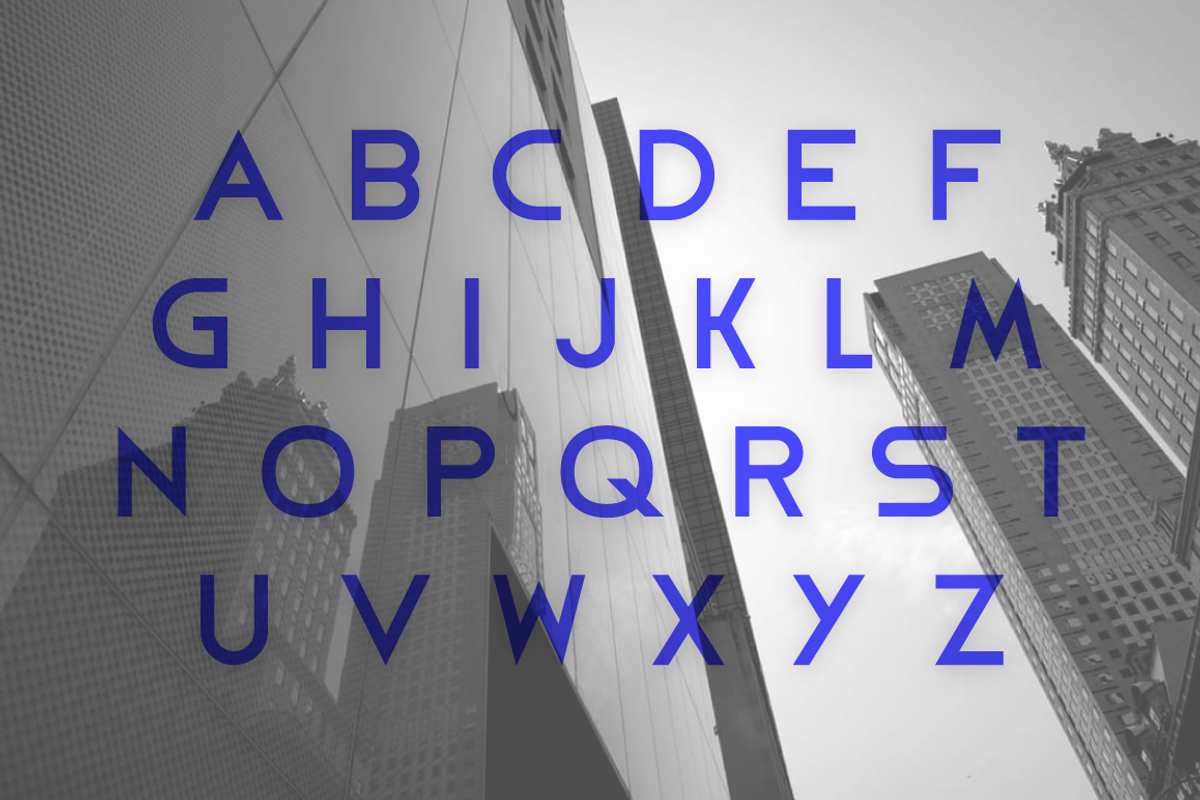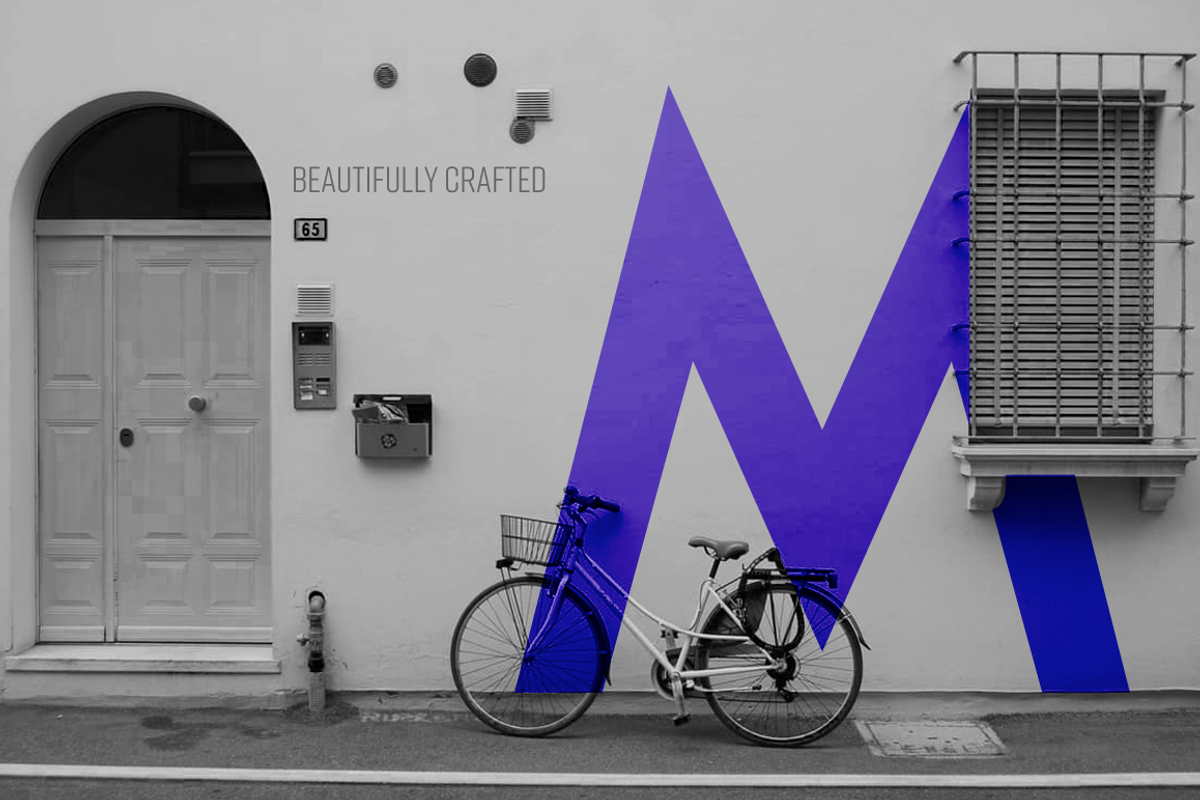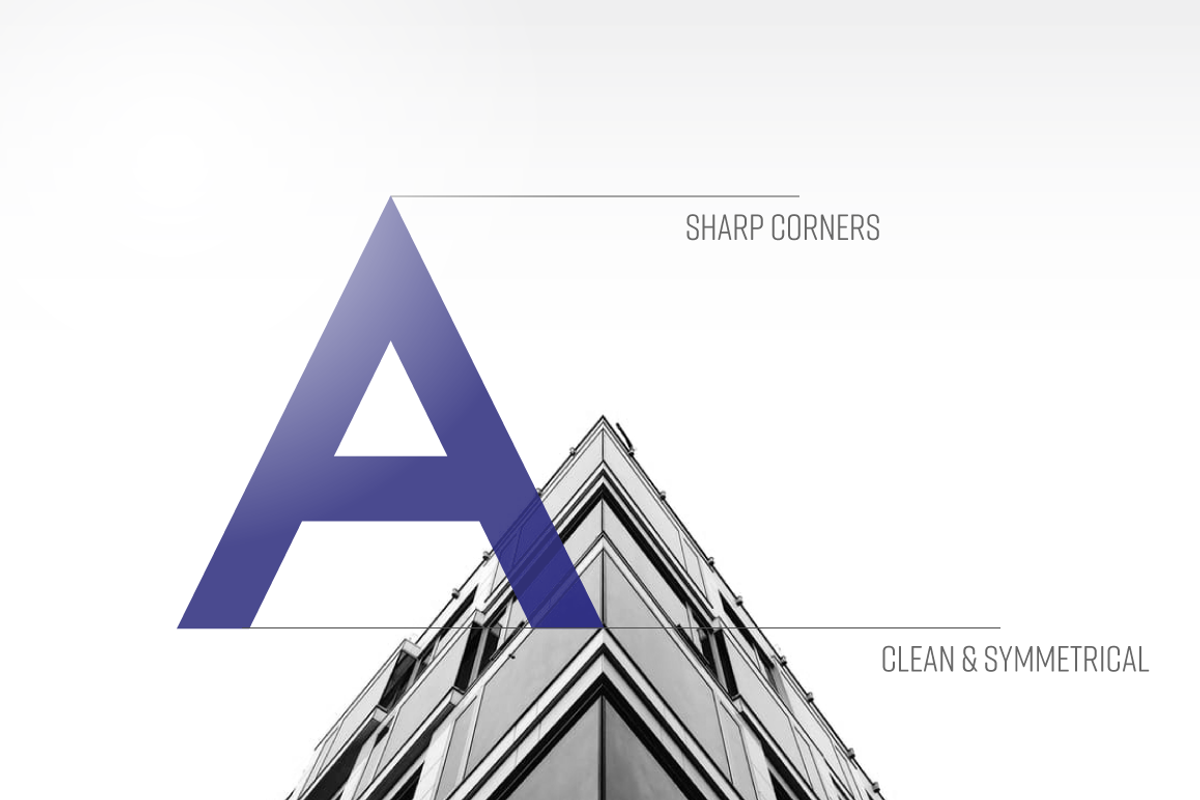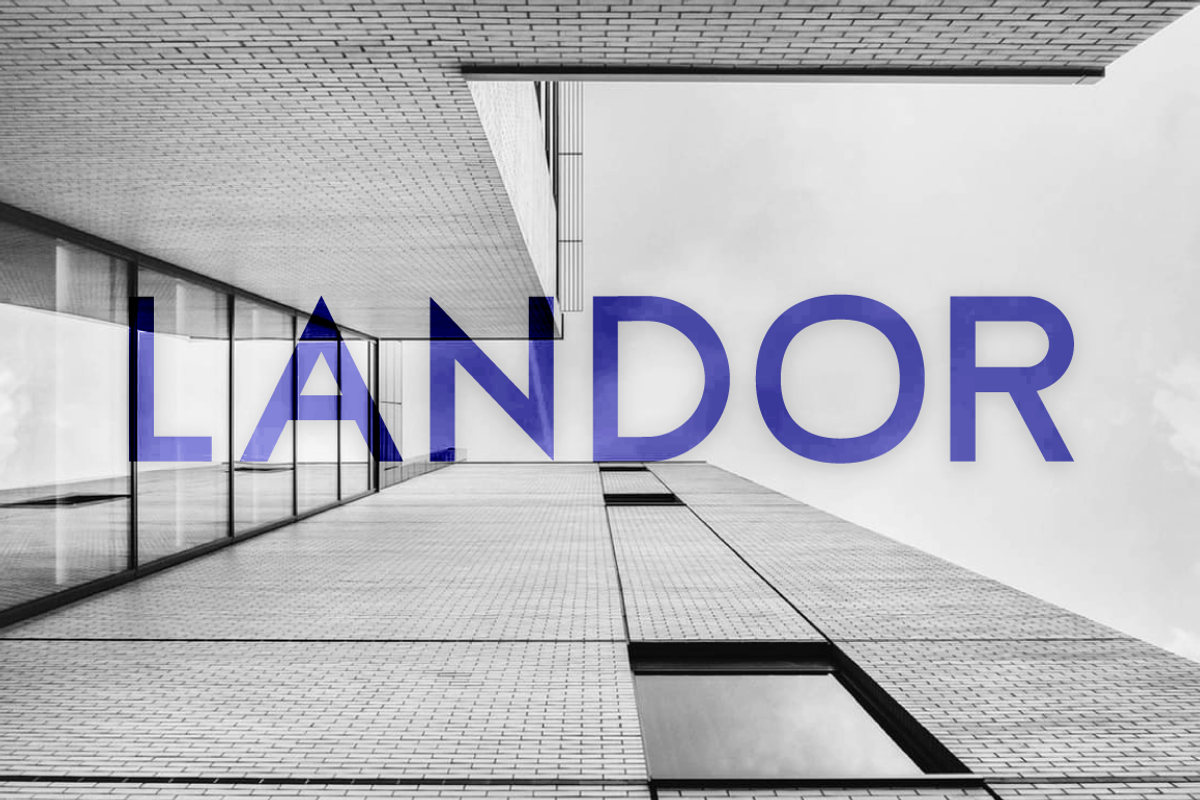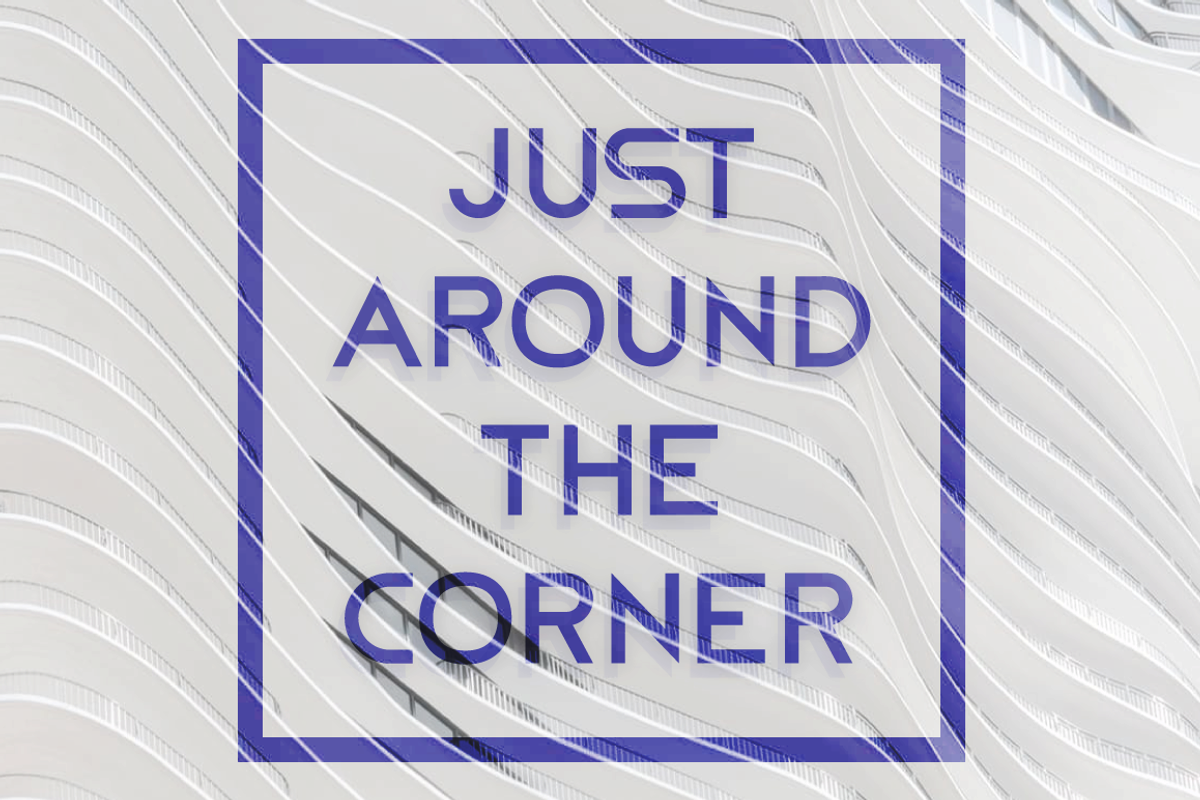
Landor Display Typeface
Landor Display Typeface by Projectile is a font selected for branding, posters, packaging, typography.
- Features: Uppercase Basic Latin Latin-1 supplement Cyrillic support Alphabets, numerics & punctuations Suitable for: Headlines Titles Logos
Why Landor Display Typeface is worth a look
Landor Display Typeface by Projectile fits naturally into Branding, posters, packaging, typography.